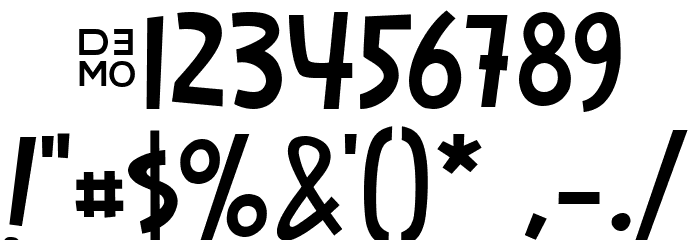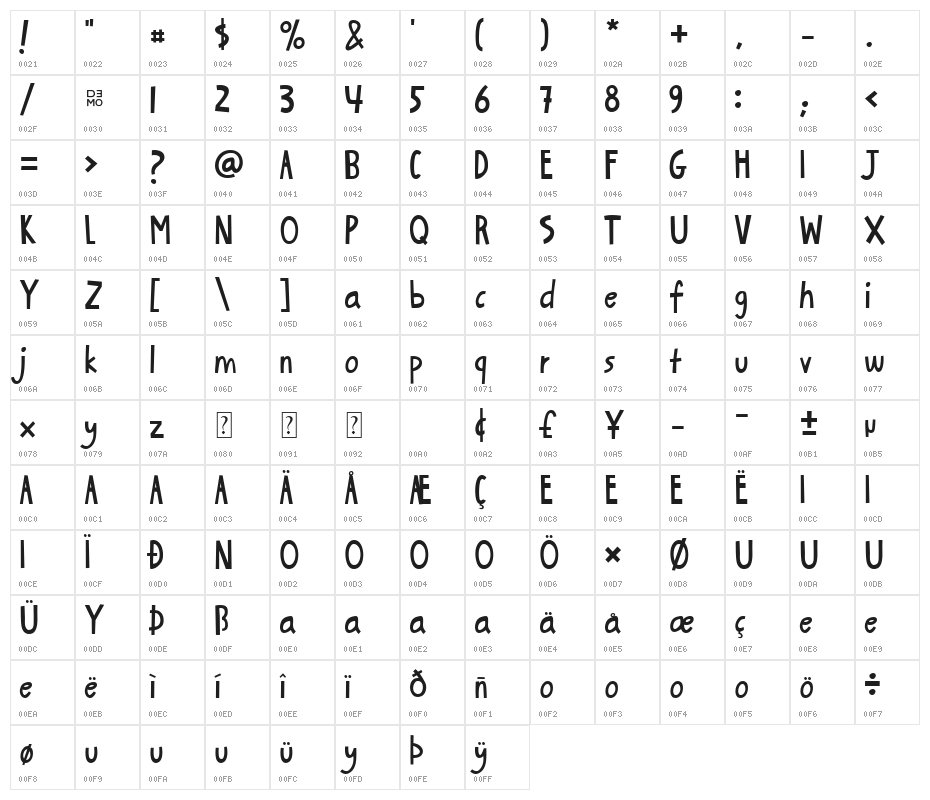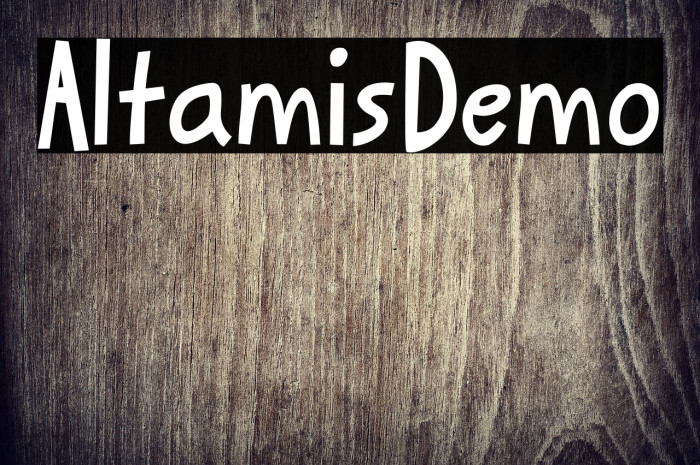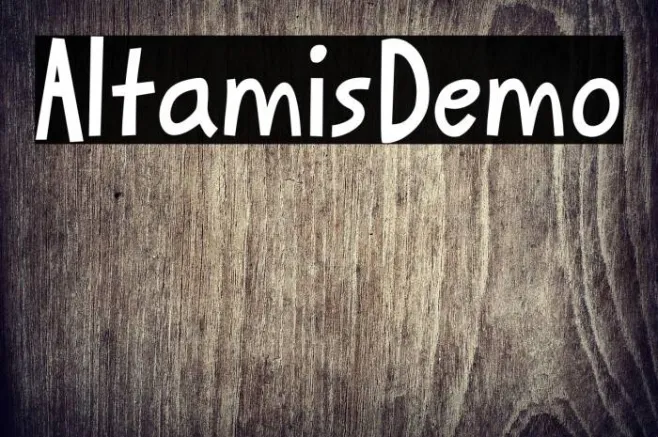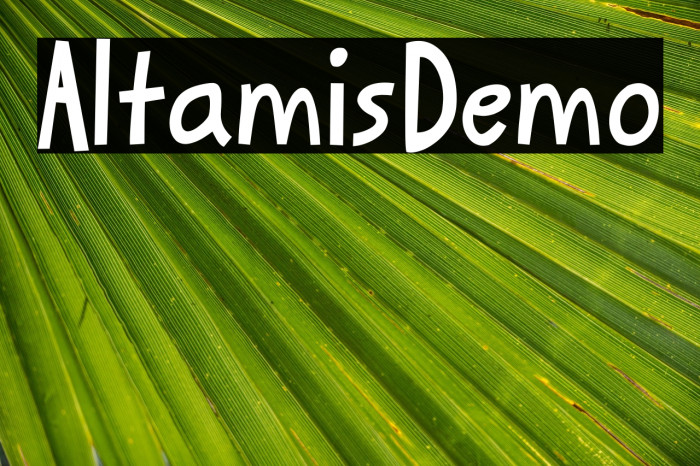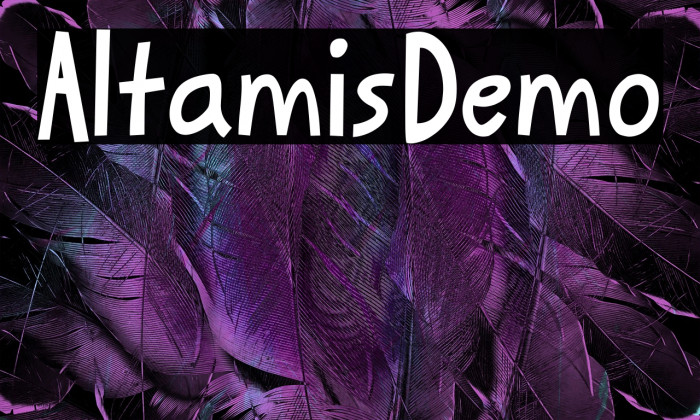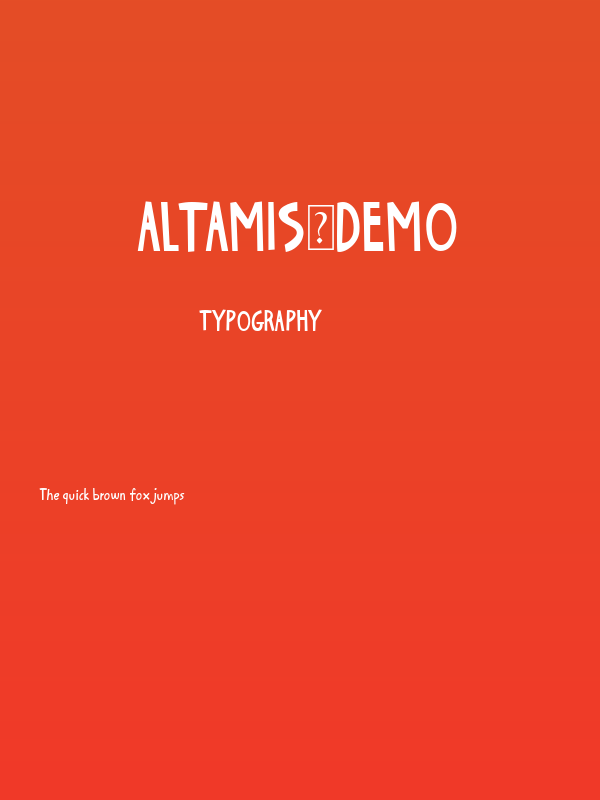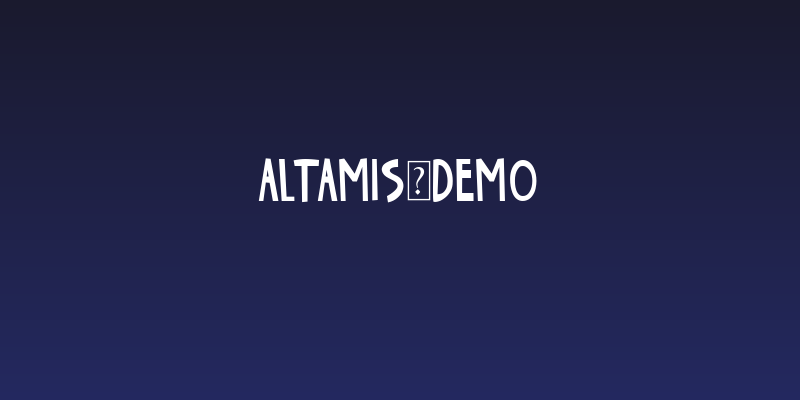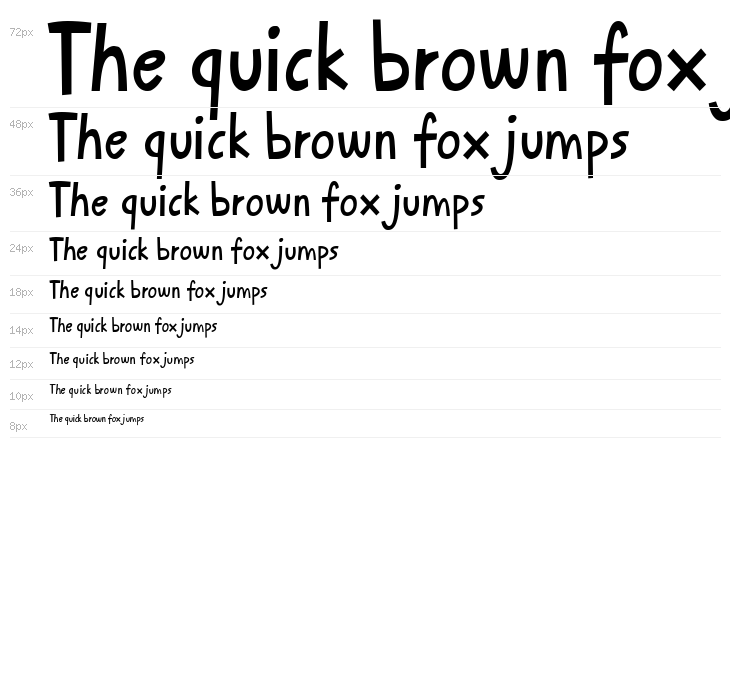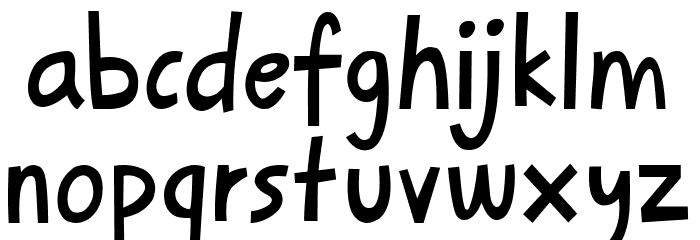
Altamis_Demo Font
Altamis_Demo Description
This font features a playful and informal style with a hand-drawn appearance. The uppercase letters are bold and slightly irregular, giving a whimsical and friendly vibe. The lowercase letters maintain this casual feel, with some characters having unique, exaggerated curves. The numerals are consistent with the overall style, offering a quirky yet readable look. Special characters are creatively designed, adding to the font's charm. This font is perfect for projects that require a fun and approachable aesthetic.
| Proposed Projects | Ideal for children's books, playful branding, greeting cards, and casual posters. |